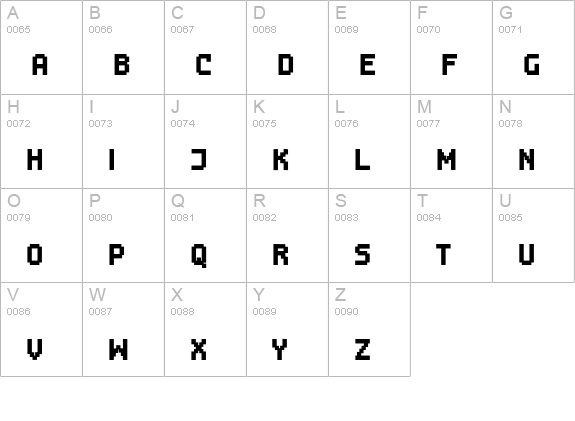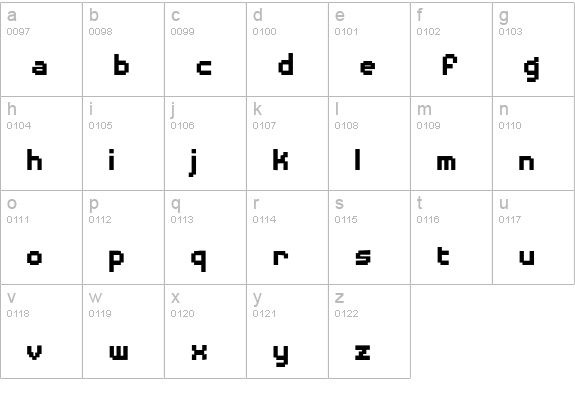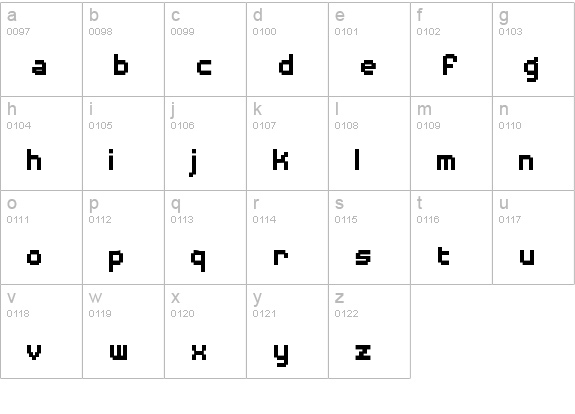
DisposableDroid BB Bold Font Details
DisposableDroid BB Bold is a strong, high-contrast variant in the DisposableDroid typeface family \xE2\x80\x94 well suited to headlines, attention-grabbing titles, and strong calls-to-action.
Introducing DisposableDroid BB Bold font, a striking and modern typeface that is sure to make a bold statement in your designs. This font is perfect for adding a touch of sophistication and professionalism to any project, whether it's a logo, poster, or website. DisposableDroid BB Bold font features clean and crisp lines, giving it a sleek and contemporary look. It exudes confidence and strength, making it suitable for a wide range of applications. With its bold and impactful appearance, this font is guaranteed to grab attention and leave a lasting impression. One of the best things about DisposableDroid BB Bold font is that it is freely available to download at FontsMarket.com. This means that you can easily access and use this fantastic font without any restrictions. Whether you're a professional designer or a hobbyist, you can take advantage of this font's versatility and creativity. The versatility of DisposableDroid BB Bold font is evident in its ability to work well with various design styles and themes. It pairs beautifully with both modern and traditional elements, allowing you to create unique and eye-catching designs. Its legibility is exceptional, ensuring that your message is clearly conveyed to your audience. With DisposableDroid BB Bold font, you can easily elevate your designs to a whole new level. Its bold and dynamic nature adds a touch of excitement and energy to your projects, making them stand out from the crowd. Whether you're designing a poster for a music festival or creating a sleek corporate identity, this font is the perfect choice. Don't miss out on the opportunity to enhance your designs with DisposableDroid BB Bold font. Download it for free at FontsMarket.com and unlock its full potential. Take your creativity to new heights and make a lasting impression with this incredible font.